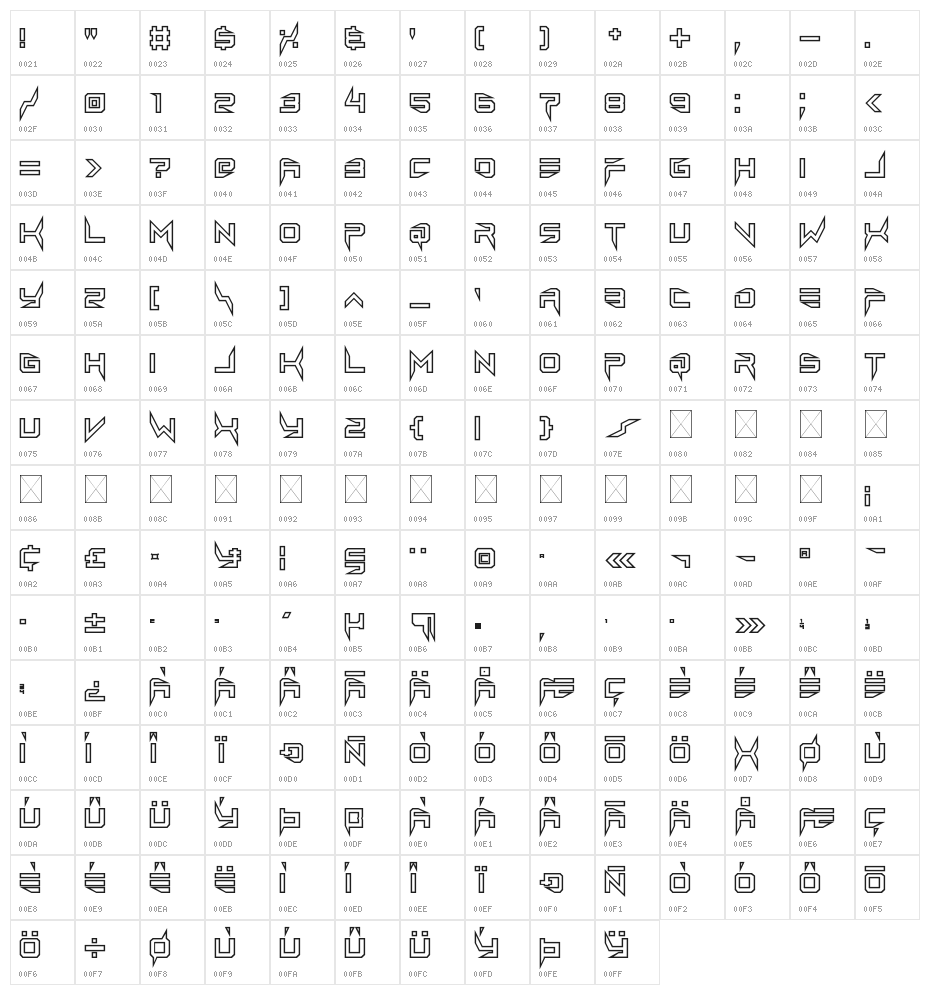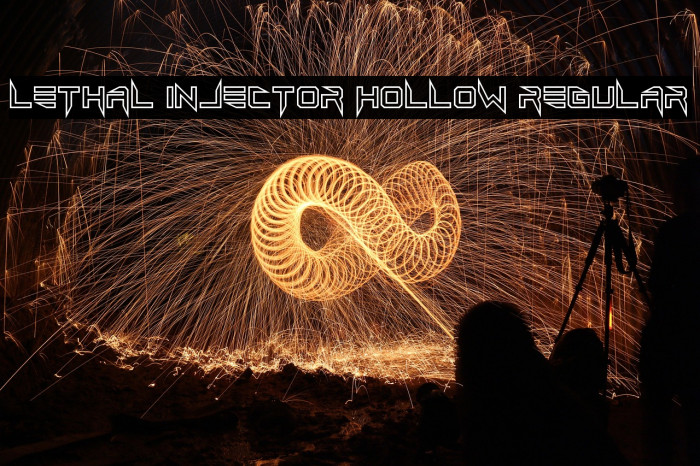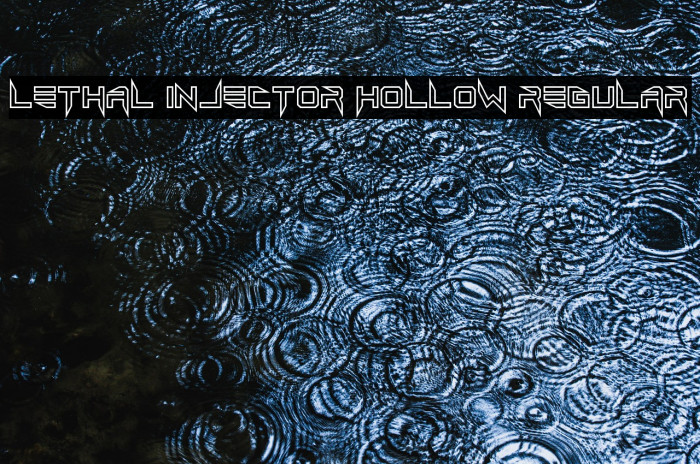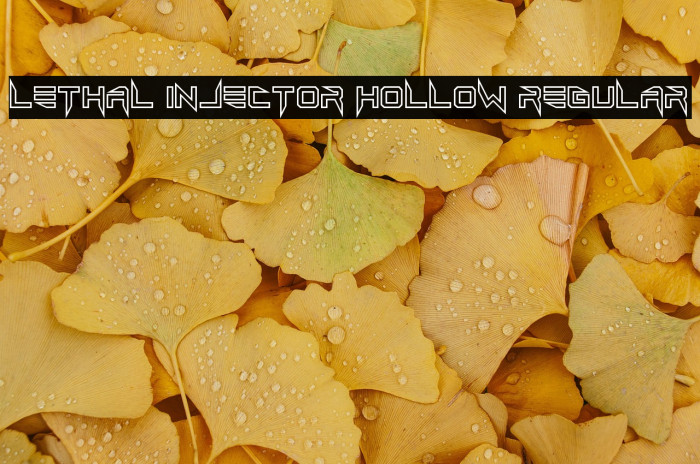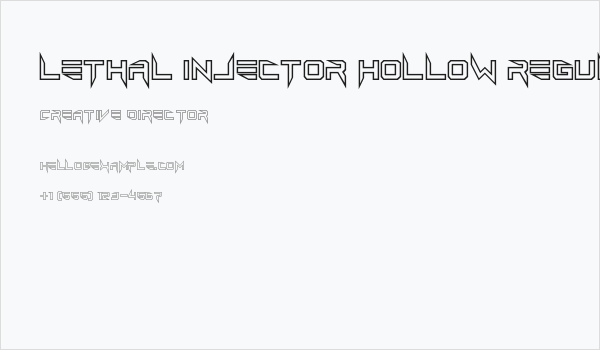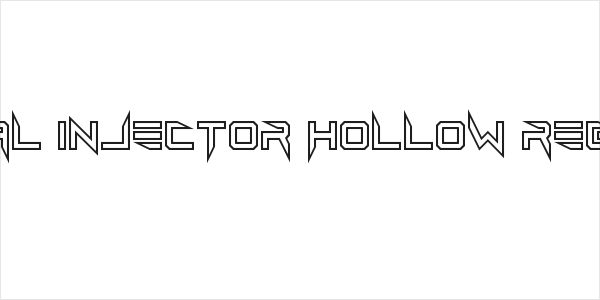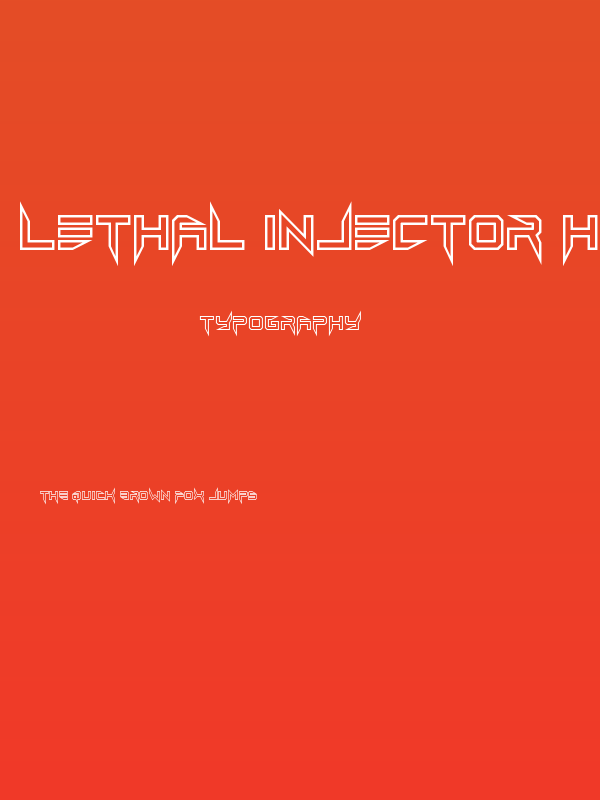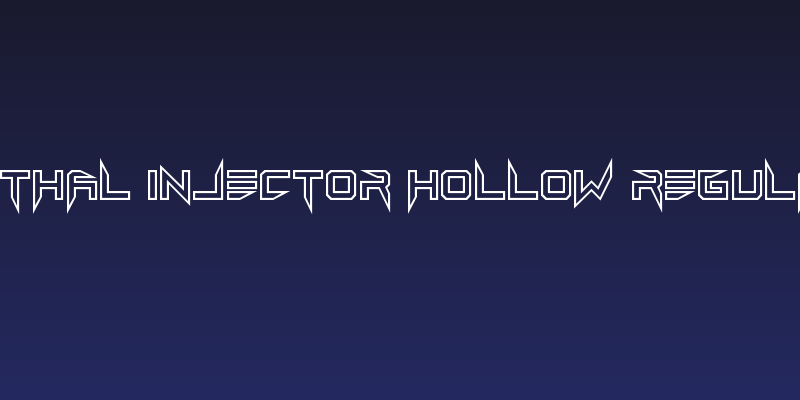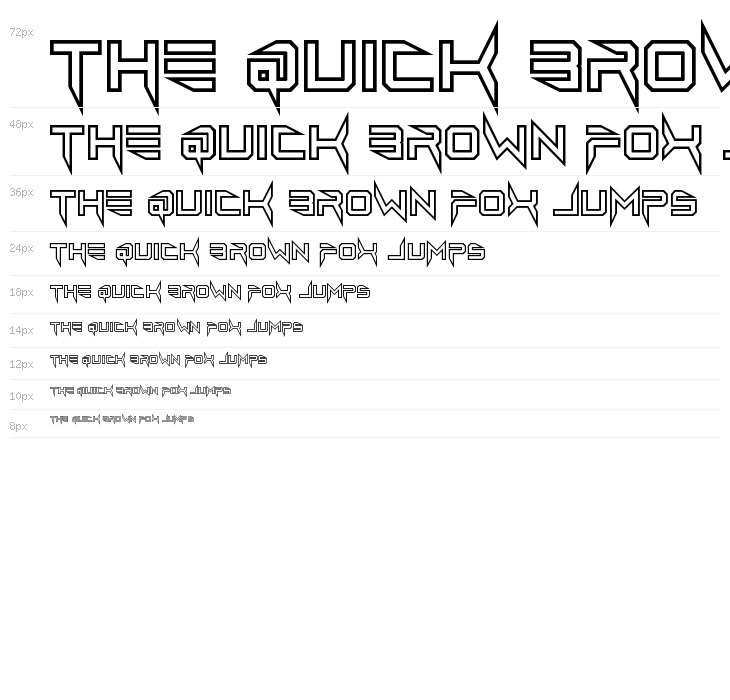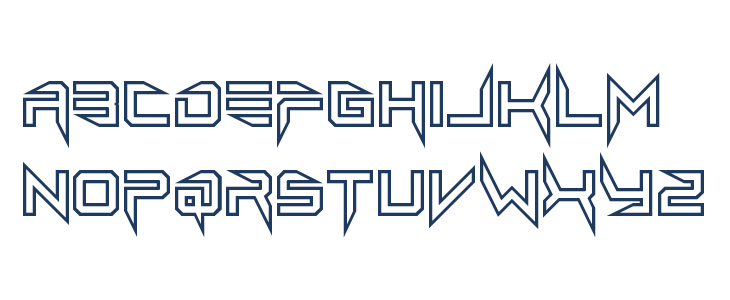
Lethal Injector Hollow Regular Font
Lethal Injector Hollow Regular Description
This font features a bold, angular design with sharp, pointed edges and a hollow interior. The geometric shapes create a futuristic and edgy appearance, making it stand out with its unique style. Each character is crafted with precision, maintaining a consistent thickness throughout the strokes, which adds to its boldness. The font includes uppercase letters, numbers, and a variety of special characters, all designed with the same distinctive style. Its hollow design gives it a lightweight feel despite its bold outlines, making it suitable for eye-catching displays.